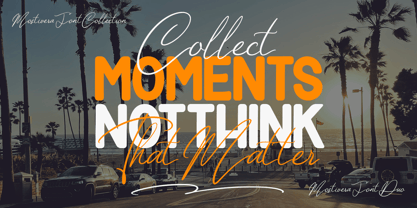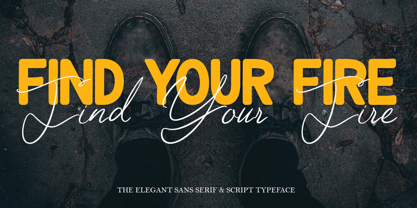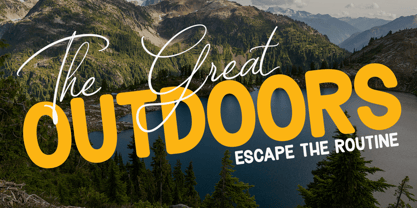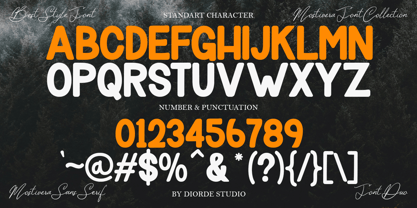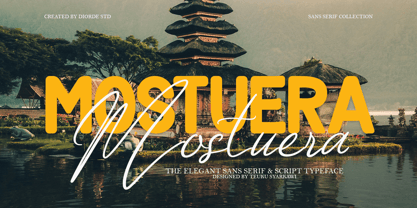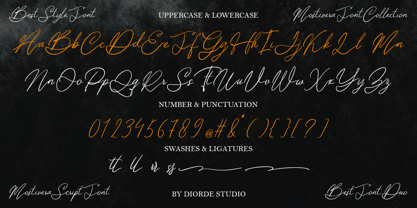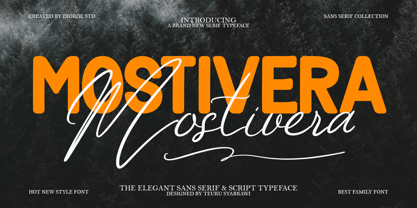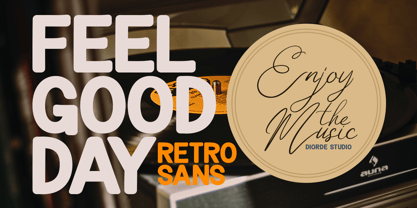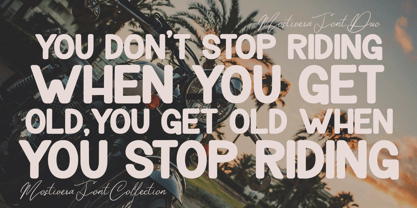
Mostivera Script
by Deorde Studio
The Mostivera Script Font Family was designed by Teuku Syarkawi and published by Deorde Studio. Mostivera Script contains 11 styles and family package options. More about this family
Mostivera Font Duo is a beautifully crafted font combination that merges a bold geometric sans serif with a flowing signature script. This versatile pairing is designed to create eye-catching typography, striking the perfect balance between strength and elegance. The bold sans serif features clean, modern letterforms that exude confidence, while the handwritten script introduces warmth, sophistication, and a natural signature feel. Together, they produce stunning typography ideal for branding, web design, editorial projects, and creative design endeavors. Whether used individually or in tandem, Mostivera simplifies the process of crafting professional, stylish, and memorable designs.
Designers: Teuku Syarkawi
Foundry: Deorde Studio
Mostivera Script